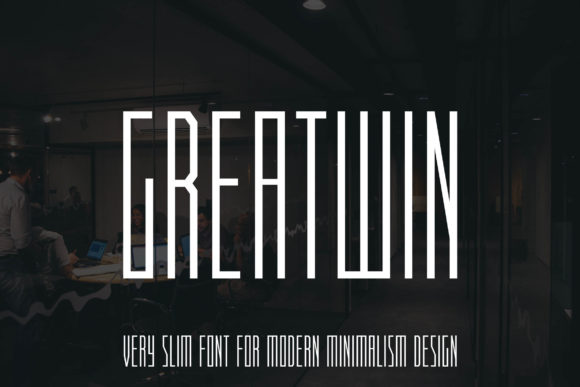
Unleash the power of Greatwin, the font that embodies faith, hope, and devotion. Immerse yourself in the divine essence of this sans serif masterpiece, meticulously designed to elevate your religious texts and spiritual creations. Each letter is a testament to the beauty of belief, guiding your readers on a journey of enlightenment.
Journey through the depths of religious scriptures, where Greatwin's clean lines and unwavering structure provide a foundation for your words to shine. Its robotic precision evokes a sense of reverence, while its neatness ensures readability and clarity. Whether you're composing hymns, crafting sermons, or designing prayer books, Greatwin will effortlessly elevate your message.
With Greatwin, your religious creations will radiate an aura of authenticity and devotion. Its unwavering consistency and timeless appeal make it the perfect choice for capturing the essence of faith. Embrace the power of words and let Greatwin amplify their impact.
Beyond its religious applications, Greatwin's versatility extends to a wide range of creative endeavors. Its strength and clarity make it ideal for branding and marketing materials, where it commands attention and leaves a lasting impression. Explore the possibilities of logos, brochures, flyers, and social media graphics that exude professionalism and sophistication.
Greatwin's robotic charm adds a touch of modernity to contemporary designs. Its sharp edges and defined curves lend themselves beautifully to posters, invitations, and greeting cards, infusing them with a futuristic flair. Experiment with different colors, textures, and backgrounds to create captivating visuals that resonate with your audience.